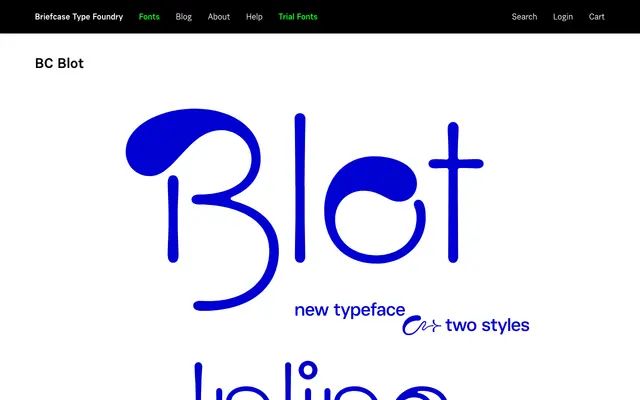
A display typeface from Briefcase Type Foundry with an expressive, ink-influenced character suggested by its name.
BC Blot sits in Briefcase Type Foundry's display catalogue, its name suggesting an ink-blot or gestural quality suited to expressive typographic applications. Insufficient detail was available on the page to confirm weight range, language coverage or specific stylistic features. Further information should be verified directly on the foundry's product page.
The name 'Blot' and its placement in Briefcase's catalogue suggest a display typeface with expressive or ink-based character, though insufficient page content was provided to confirm subcategory with precision.